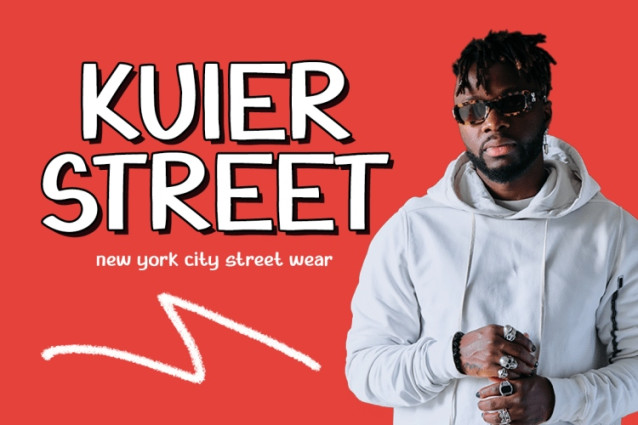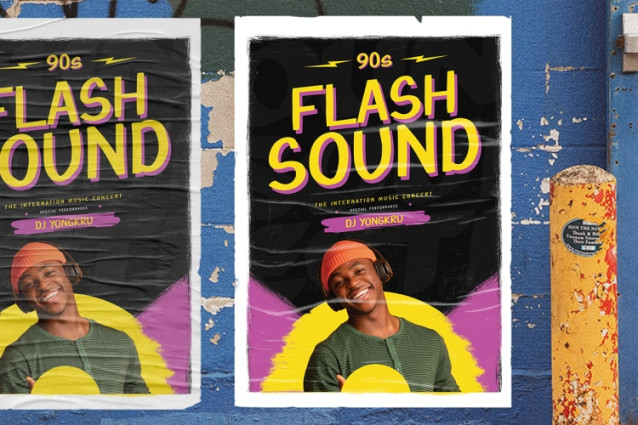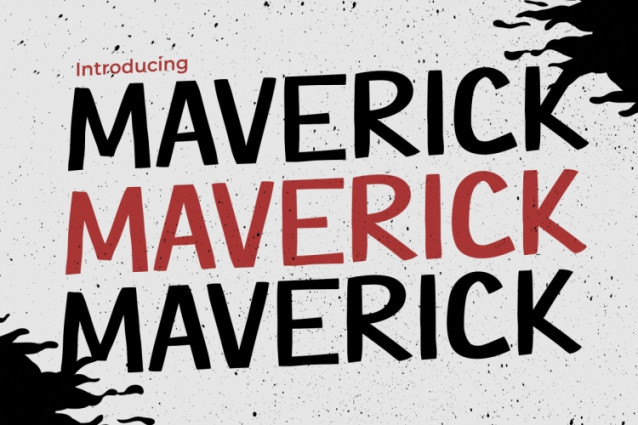
Maverick Font
Graffiti Font MAVERICK is a bold and expressive typeface that brings street-style energy to designs. Inspired by urban street art and rebellion, this font has a rugged yet stylish look. Therefore, it is perfect for headlines, posters, and branding. The handcrafted, irregular strokes mimic graffiti’s natural movement, adding a raw and edgy feel.
Moreover, this font balances chaos and structure, making it both striking and readable. The bold, slightly distorted letters create movement and personality. Since its rough edges and spontaneous design embody freedom and non-conformity, it is ideal for projects that demand a strong visual impact.